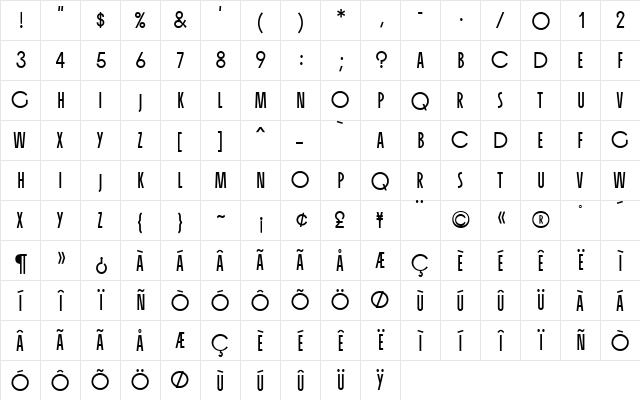
Organda MN Bold
Design Context for Organda MN Typeface
Organda MN takes a measured approach to typography — its balanced proportions and neutral character make it a reliable workhorse for both digital and print work. The heavy weight commands attention and anchors typographic hierarchies.